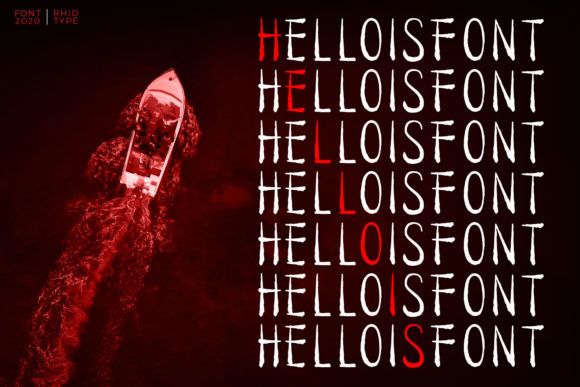
Indulge in the realm of the extraordinary with Hellois Font, a captivating display font that embodies the essence of Halloween's enchanting allure. Its meticulously crafted characters exude a spine-tingling charm, beckoning you to unleash your creativity in a symphony of spooky splendor.
Embrace the boldness of Hellois Font's captivating numbers, which dance upon the page with an irresistible rhythm. Transform your designs into mesmerizing masterpieces that will leave an unforgettable mark on the digital landscape.
With Hellois Font at your fingertips, you possess the power to evoke a sense of eerie elegance in your Halloween-themed endeavors. Its versatility extends to a myriad of chilling creations, from spine-chilling invitations to haunting posters that whisper tales of mystery and intrigue.
Immerse yourself in the captivating embrace of Hellois Font. Allow its haunting beauty to captivate your imagination and ignite a spark of inspiration that will illuminate the darkest corners of your creativity. With this font, the ordinary becomes extraordinary, and the mundane transforms into the marvelously macabre.
As you weave your designs with Hellois Font, a sense of otherworldly enchantment will permeate your creations. Its bewitching presence will cast a spell upon your audience, drawing them into the depths of your imagination.
Dare to embrace the darkness, let Hellois Font be your guide. With its enchanting characters, you will craft a visual symphony that will haunt the dreams of those who behold it. Experience the magic of Hellois Font today, and let your imagination soar on the wings of the unknown.